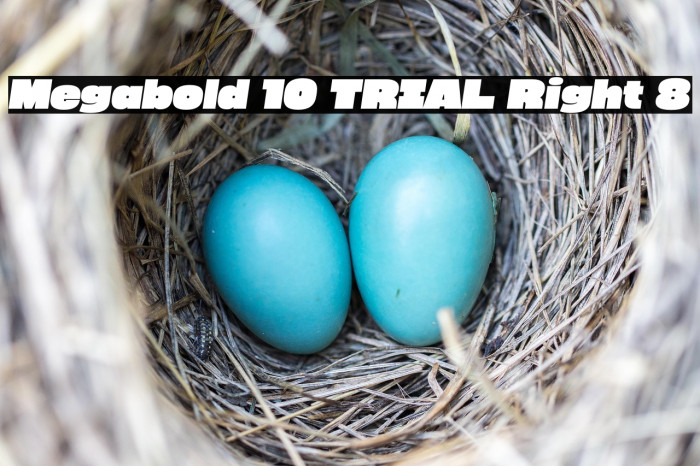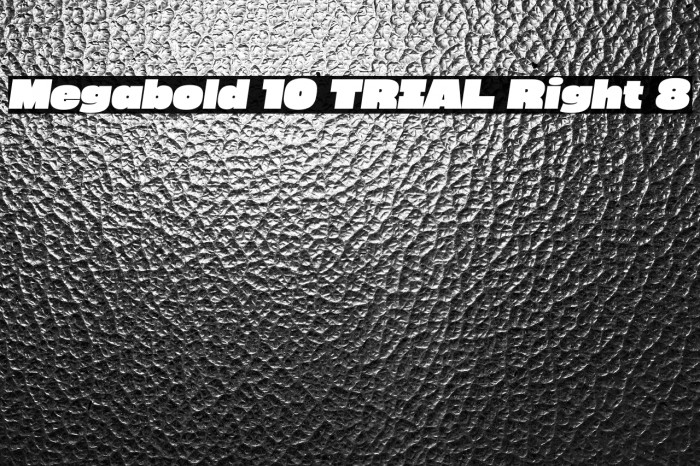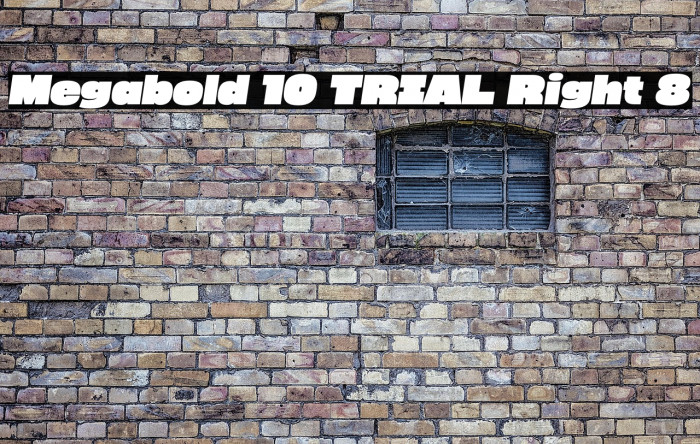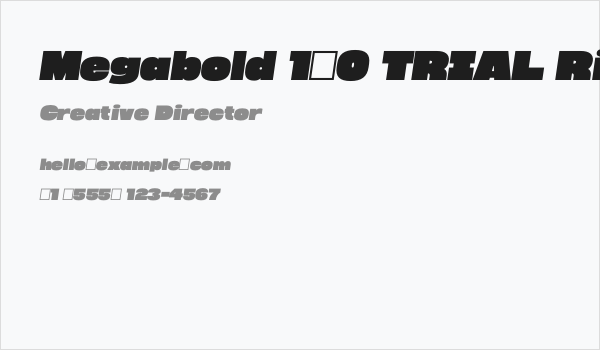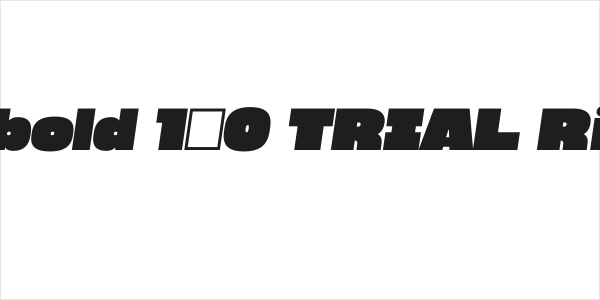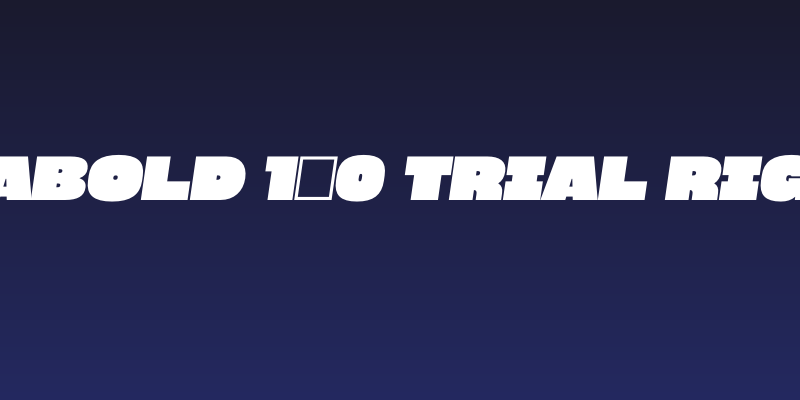
Megabold 1.0 TRIAL Right 8 Font
Megabold 1.0 TRIAL Right 8 Description
This font features a bold and impactful design with thick, heavy strokes that create a strong visual presence. The characters are uniformly wide, with a slight slant that adds a dynamic feel. The uppercase and lowercase letters maintain a consistent style, emphasizing the boldness and strength of the design. The numbers are equally robust, ensuring legibility and prominence. The special characters are designed to match the overall bold aesthetic, making them suitable for attention-grabbing headlines or logos. The font's style is modern and assertive, ideal for projects that require a commanding and confident typeface.
Proposed ProjectsIdeal for headlines, branding, posters, and any design needing a strong visual impact.